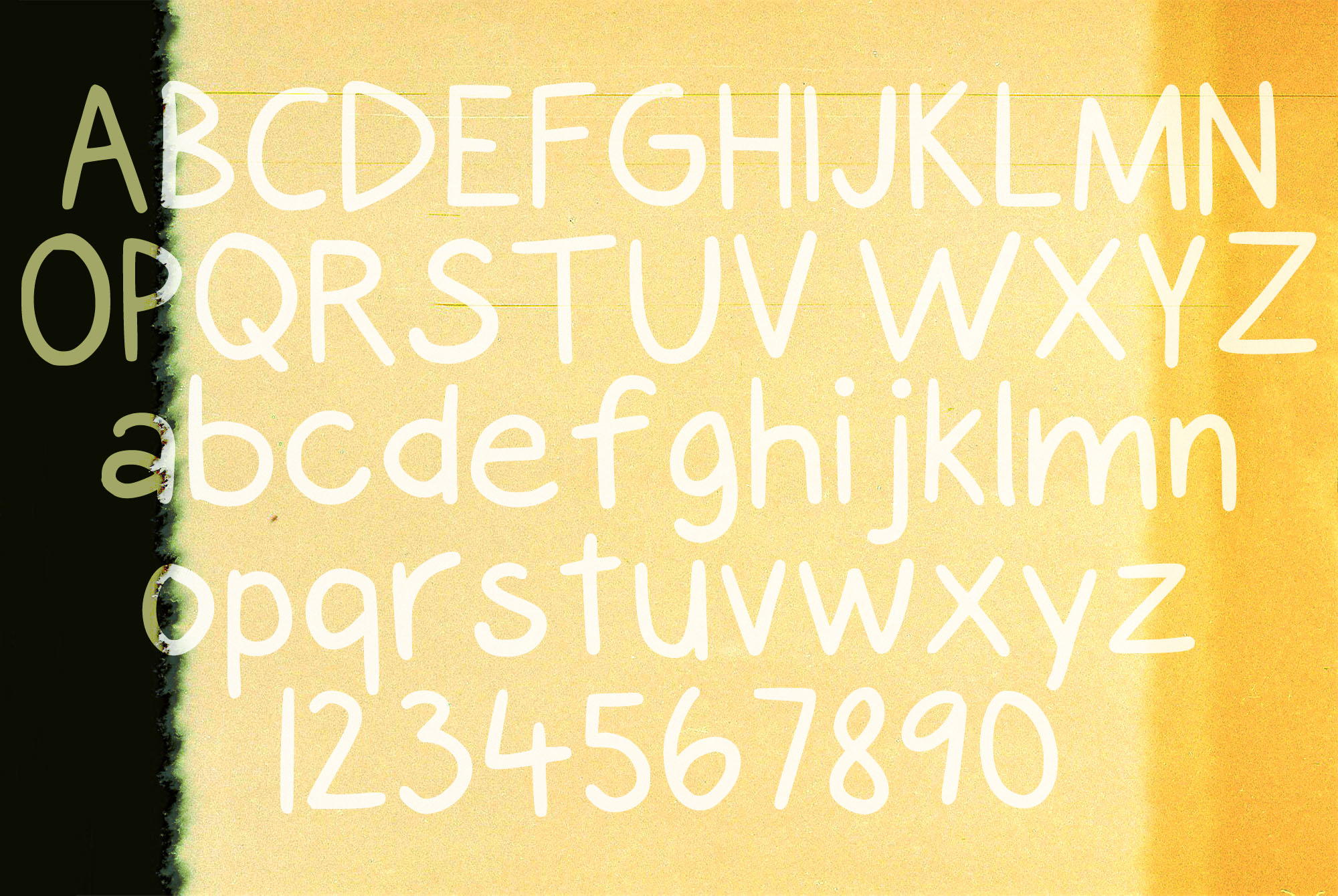
Alyssa Kayla Font: Add a Touch of Whimsy to Your Designs
Are you looking for a font that can add a dash of fun and playfulness to your designs? Look no further than the Alyssa Kayla font! This handwritten font is perfect for designers and crafters who want to infuse their work with a carefree and genuine vibe. In this article, we’ll take a closer look at the Alyssa Kayla font, its features, and how you can use it to elevate your designs.
What is Alyssa Kayla Font?
Alyssa Kayla is a fun and carefree handwritten font that is designed to bring a smile to your face. It’s a friendly and genuine font that can give your designs an appealing and cutesy charm. The font is perfect for a wide range of design projects, from social media graphics and blog posts to invitations, posters, and more.
Key Features of Alyssa Kayla Font
So, what makes Alyssa Kayla font so special? Here are some of its key features:
- Handwritten style: Alyssa Kayla font has a beautiful handwritten style that gives it a personal and unique touch.
- Carefree and playful: The font has a carefree and playful vibe that’s perfect for designs that need to be fun and engaging.
- Friendly and genuine: Alyssa Kayla font has a friendly and genuine feel that’s sure to resonate with your audience.
- High-quality design: The font is designed with high-quality craftsmanship, ensuring that it looks great in any design project.
How to Use Alyssa Kayla Font in Your Designs
Now that we’ve covered the features of Alyssa Kayla font, let’s talk about how you can use it in your designs. Here are some ideas to get you started:
- Social media graphics: Use Alyssa Kayla font to create fun and engaging social media graphics that will grab the attention of your followers.
- Blog posts: Add a touch of whimsy to your blog posts with Alyssa Kayla font. It’s perfect for headings, subheadings, and even body text.
- Invitations: Create custom invitations for parties, weddings, and other events using Alyssa Kayla font.
- Posters and flyers: Use Alyssa Kayla font to create eye-catching posters and flyers that will grab the attention of your audience.
Tips for Getting the Most Out of Alyssa Kayla Font
Here are some tips for getting the most out of Alyssa Kayla font:
- Experiment with different colors: Alyssa Kayla font looks great in a variety of colors, so don’t be afraid to experiment and find the perfect color scheme for your design.
- Mix and match with other fonts: Try pairing Alyssa Kayla font with other fonts to create a unique and interesting design.
- Use it for headings and subheadings: Alyssa Kayla font is perfect for headings and subheadings, but you can also use it for body text for a more playful look.
| Font Name | Alyssa Kayla Font |
| Author | Dominique Demetz |
In conclusion, Alyssa Kayla font is a fun and carefree handwritten font that’s perfect for designers and crafters who want to add a touch of whimsy to their designs. With its friendly and genuine vibe, high-quality design, and versatility, Alyssa Kayla font is sure to become a favorite in your design toolkit. So why not give it a try and see how it can elevate your designs?